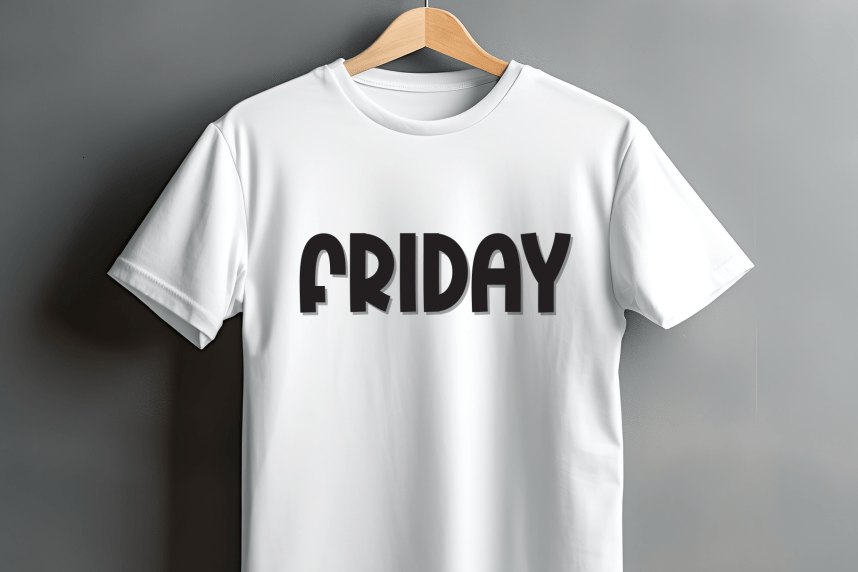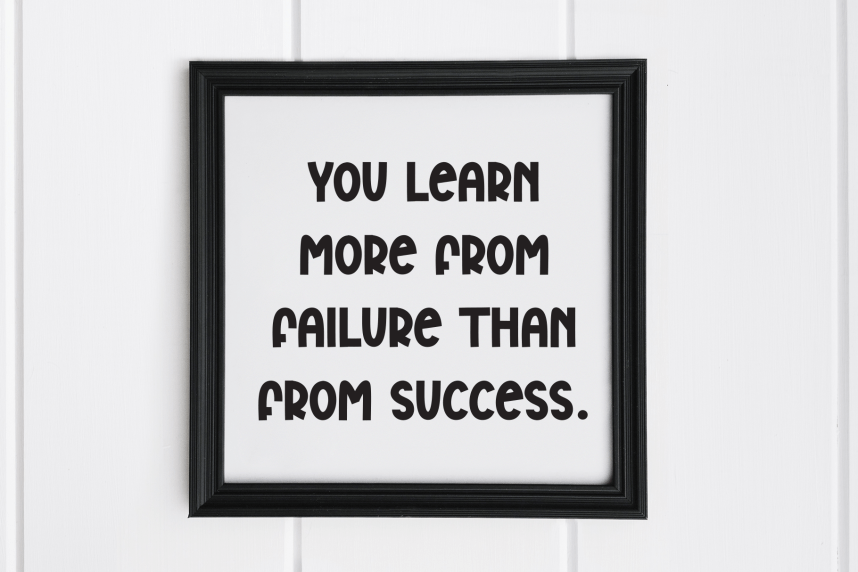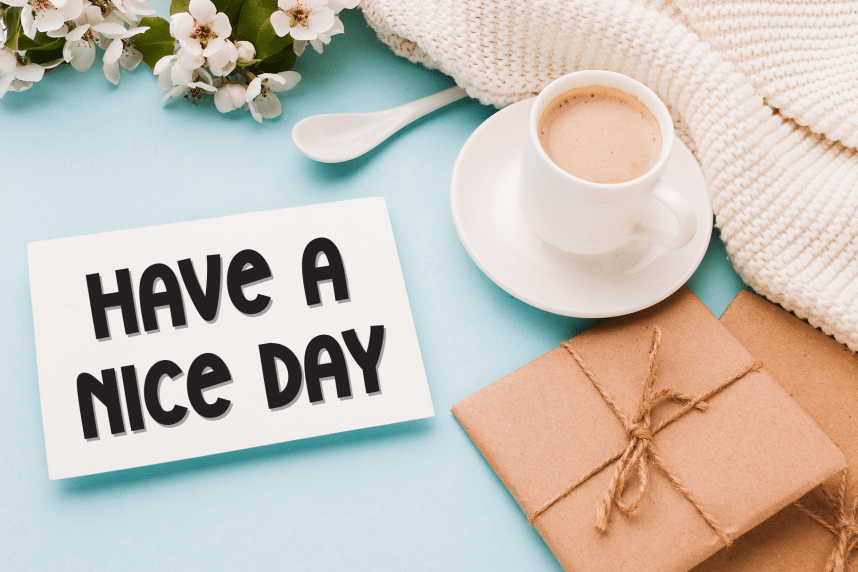
Melon Squire – Creative Style Font
Melon Squire – Creative Style Font is a sweet and friendly handwritten display font. Cute and fun, this font is ideal for writing wedding invitations, cards, or any other design that might need a playful touch!